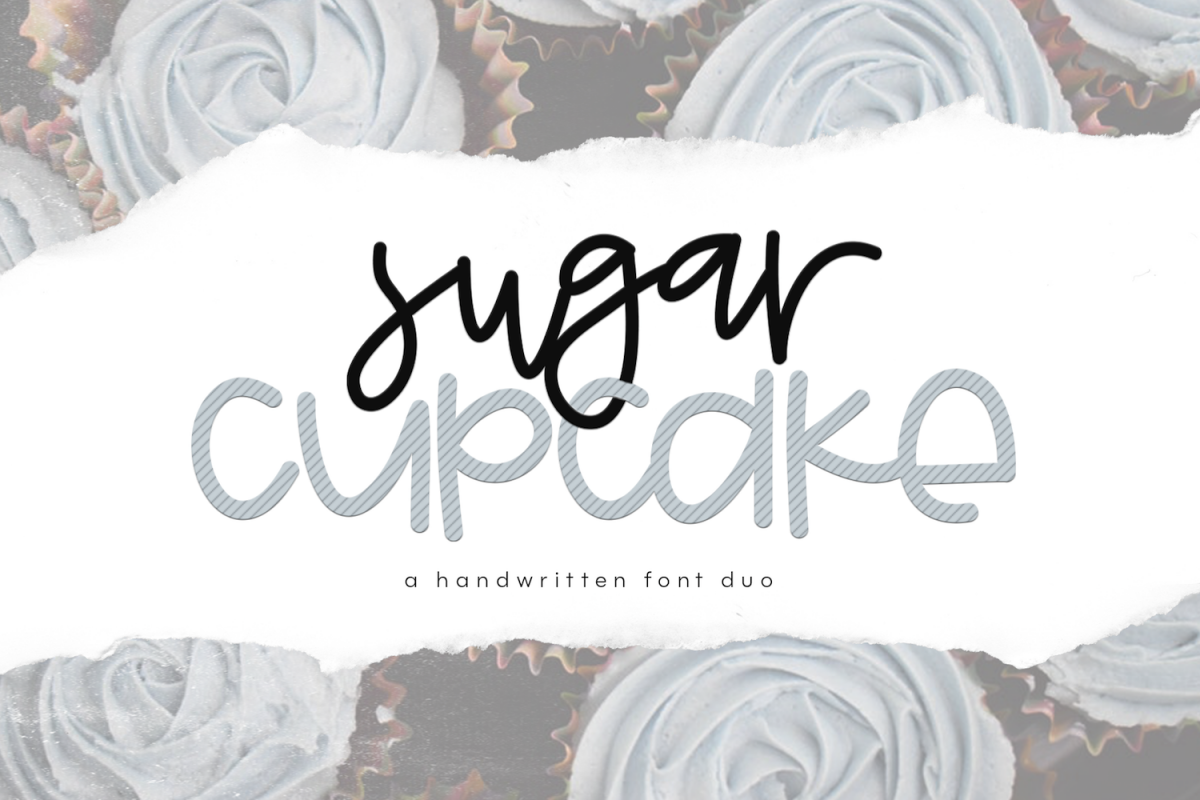
Sugar Cupcake - Handwritten Script & Print Font Duo
SugarScript-Medium
Cupcake-Medium
Sugar Cupcake is a handwritten font pair.
• Cupcake - a solid & bold, quirky print font. [TTF & OTF]
• Sugar -  a fun & elegant script font. [TTF & OTF]
This duo is perfect for quotes, headings, blogs, logos, brandings, invitations and more!
Accent characters are included.